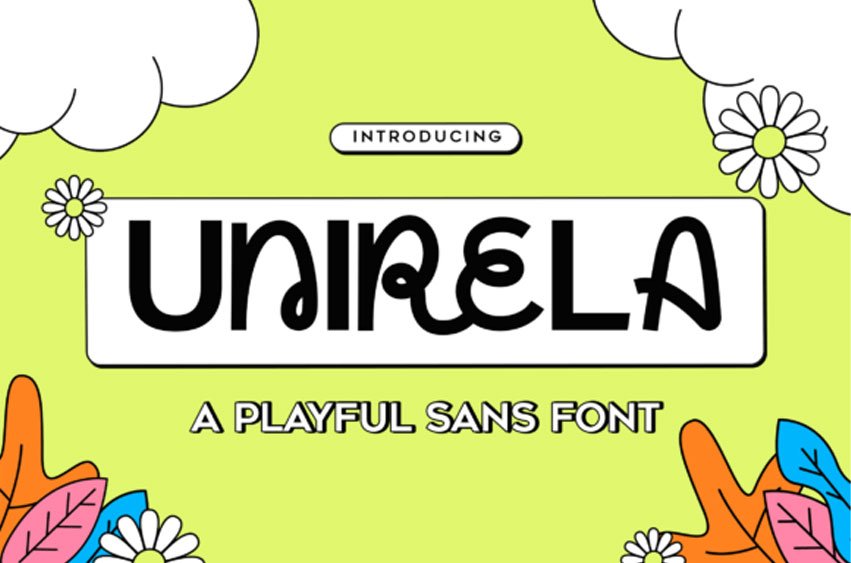
Unirela Font is a groovy fun font with playful curves, rounded shapes, and quirky letterforms that bring an energetic and cheerful personality to any design. The font combines bold sans styling with decorative loop details, making it suitable for children branding, music posters, playful packaging, creative headlines, retro themes, and colorful social media graphics.
Its expressive character design works well for standout typography while still maintaining readability. Unirela includes uppercase, lowercase, numerals, punctuation, and stylistic alternates that help create more dynamic and unique compositions.